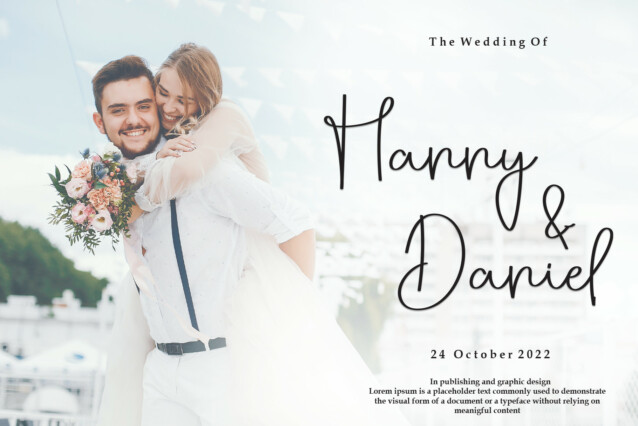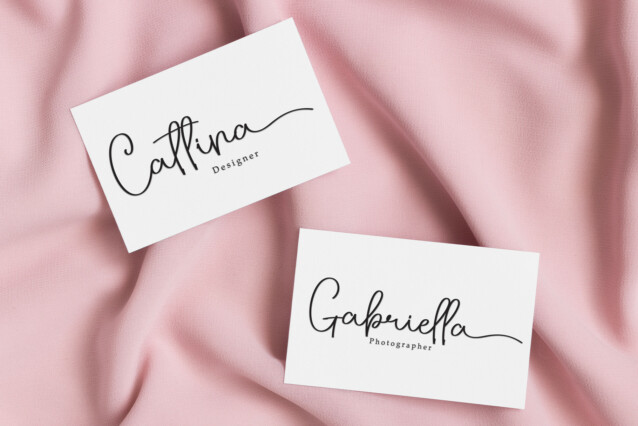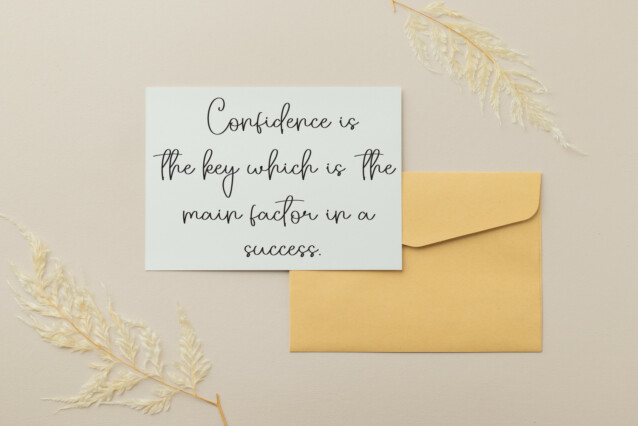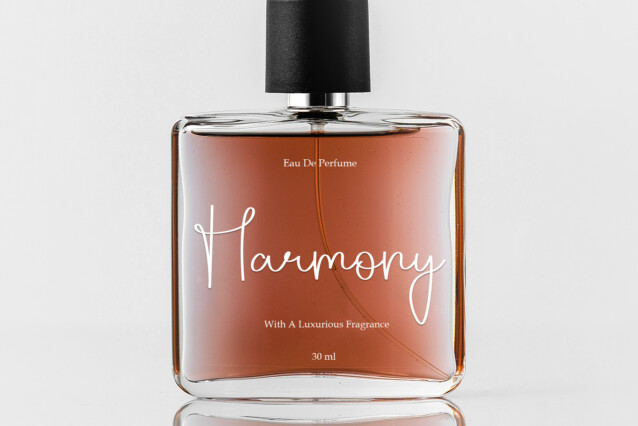
Nagatha Script Font
Nagatha Script Font is a handmade brush script. It has dancing characters and includes an unique form of calligraphy. It’s natural writing style gives it a simple, yet elegant look.